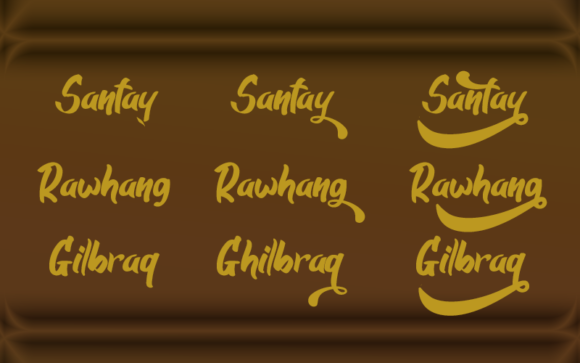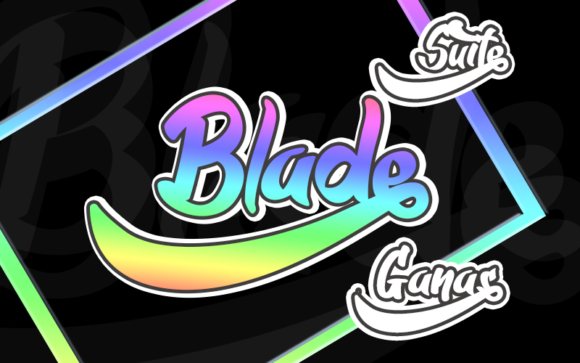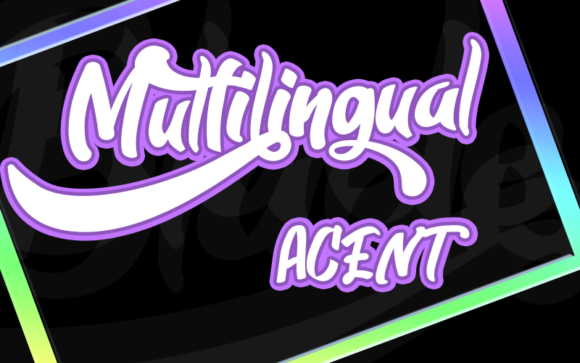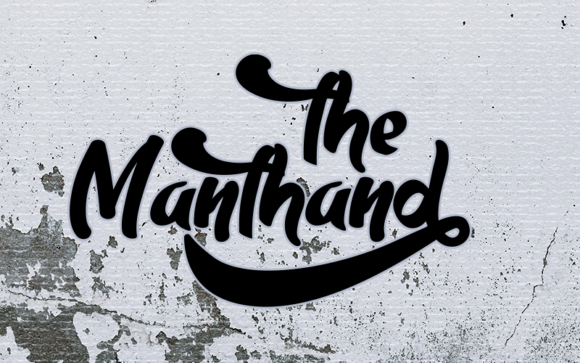
Quantum Font
About Quantum Font
Quanum is a bold and unique handwritten font, carefully handcrafted to become a true favorite. This font is the perfect fit for all of your logos, branding, social media, and crafty DIY projects.